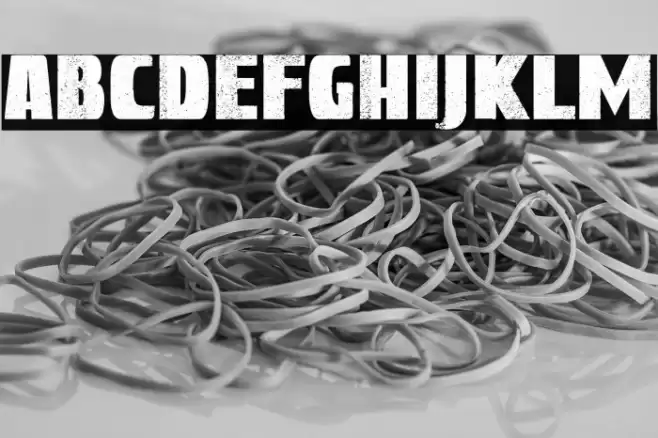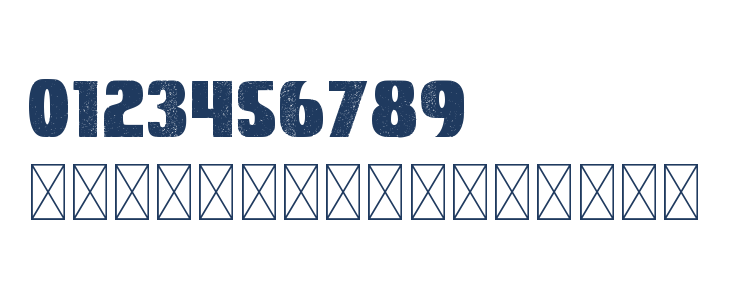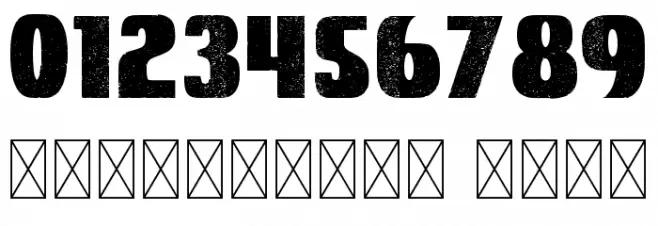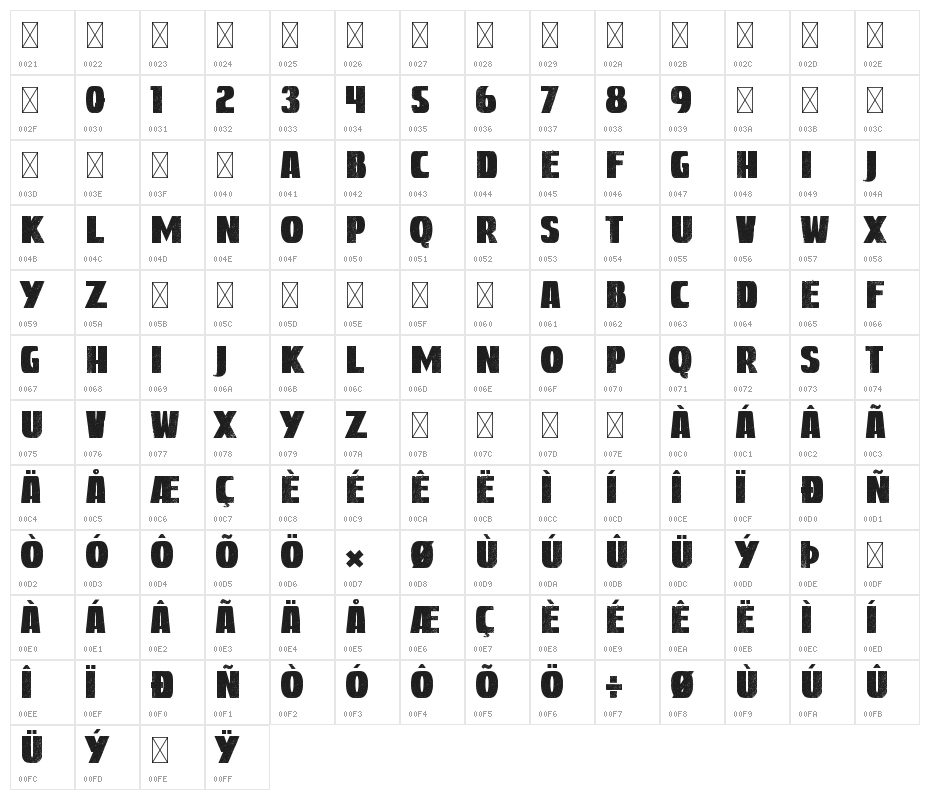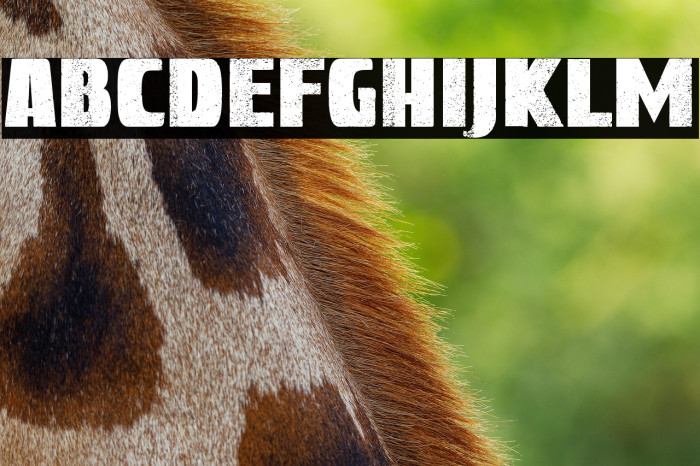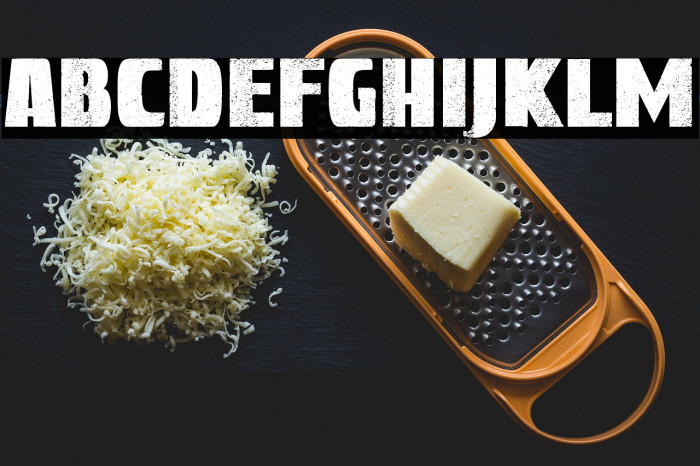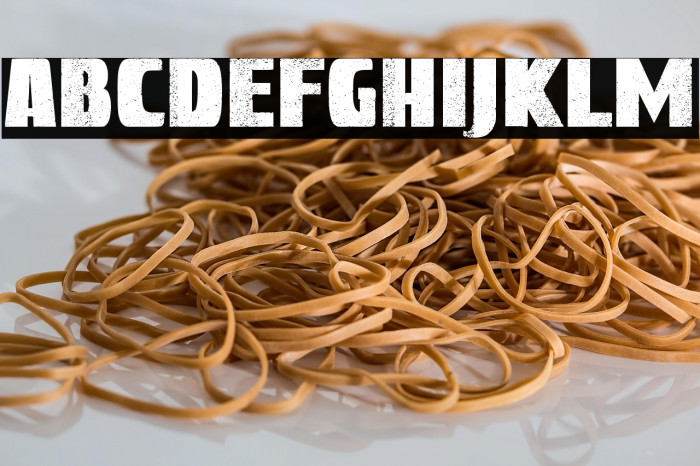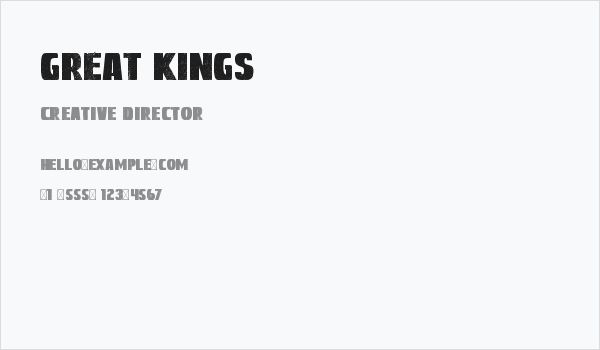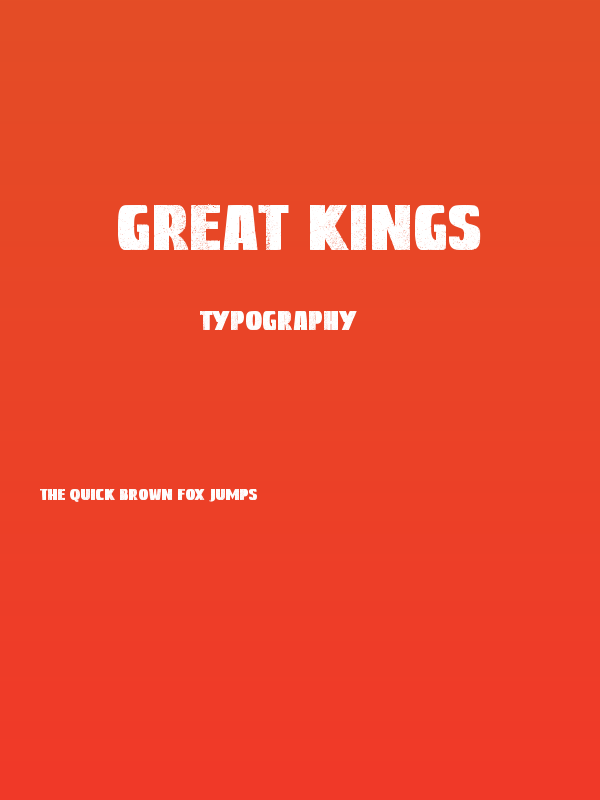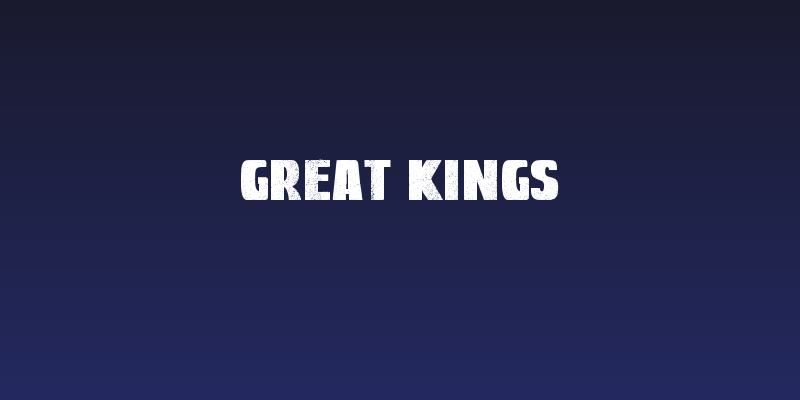
Great Kings Font
Great Kings Description
This font features a bold, distressed style that gives it a rugged and vintage appearance. The uppercase letters are prominent and impactful, making it ideal for attention-grabbing designs. The texture within each character adds a unique, worn effect, reminiscent of old printing techniques or weathered signage. The numbers and special characters maintain this distressed look, ensuring consistency across all glyphs. Its strong presence and distinctive style make it suitable for projects that require a bold statement.
A bold, distressed font with a vintage, rugged appearance from Uncategorized fonts.
- Font: Great Kings
- Proposed Projects: Ideal for posters, logos, branding, and any design that requires a strong, vintage aesthetic.
- Overall Style: Vintage